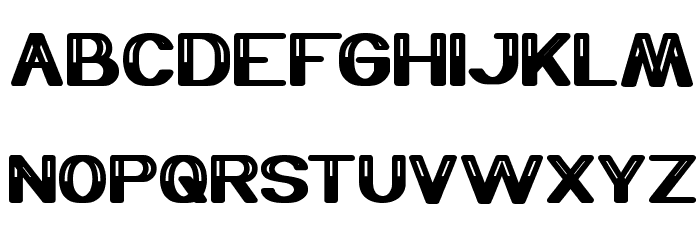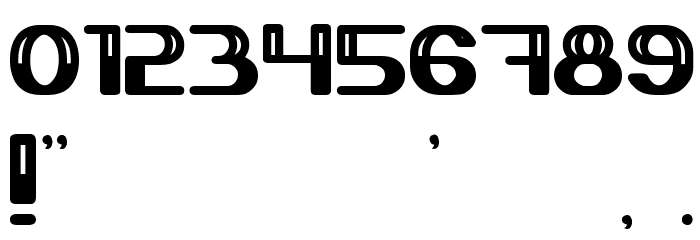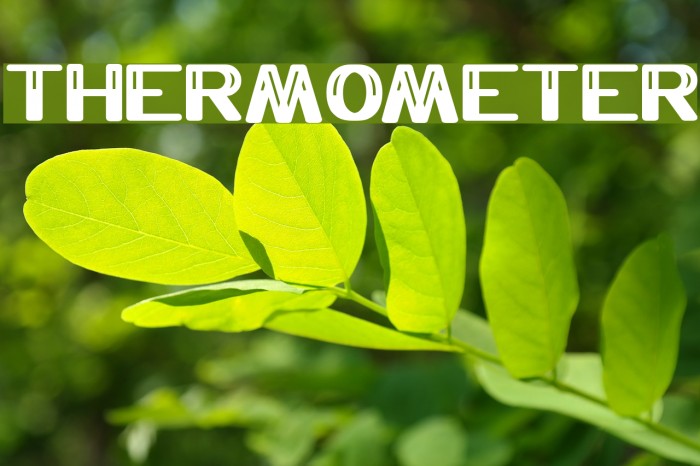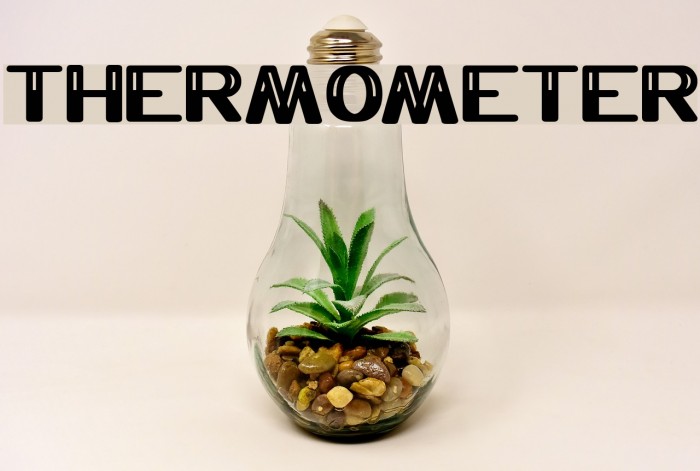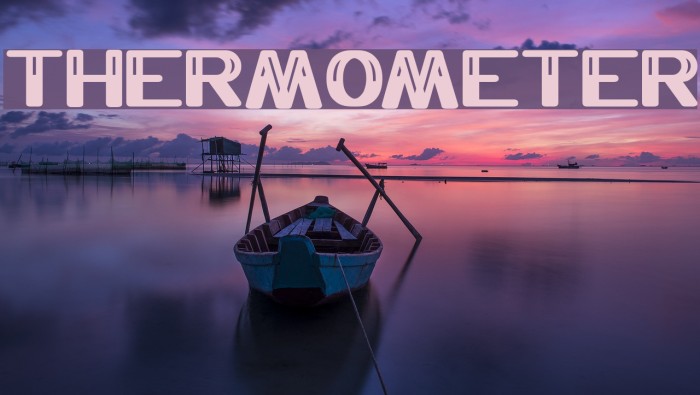
THERMOMETER Font
This font features a bold and modern design with a strong geometric influence. The characters are constructed with thick, uniform strokes that create a sense of stability and strength. The rounded edges soften the overall appearance, adding a touch of approachability. The font maintains a consistent weight throughout, ensuring readability and clarity. Its distinctive style is both eye-catching and versatile, making it suitable for a variety of applications. The numerals and special characters are designed to match the boldness of the letters, ensuring a cohesive look across all text elements.
A bold, modern font with geometric influences and rounded edges.
- Proposed Projects: Ideal for branding, headlines, posters, and signage where a strong, modern presence is desired.